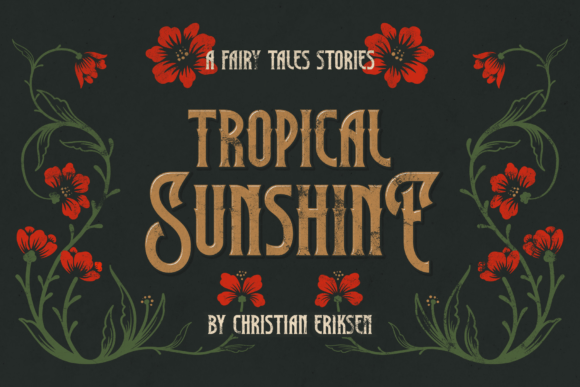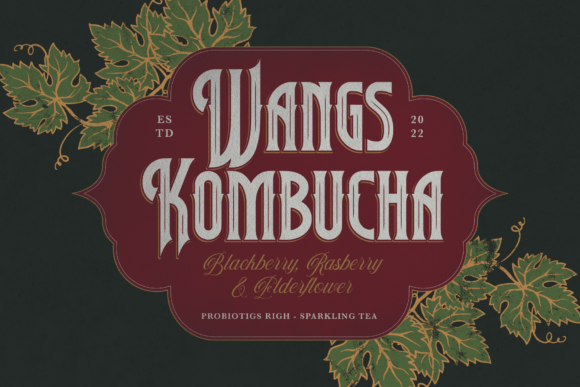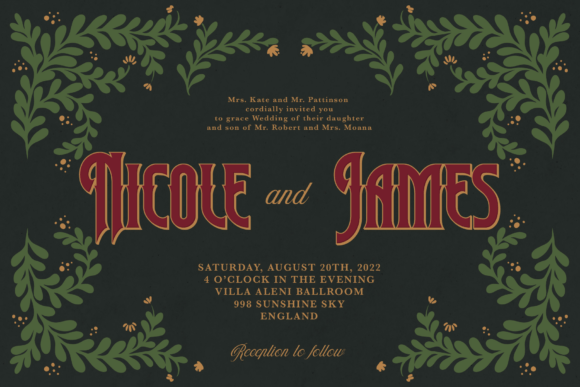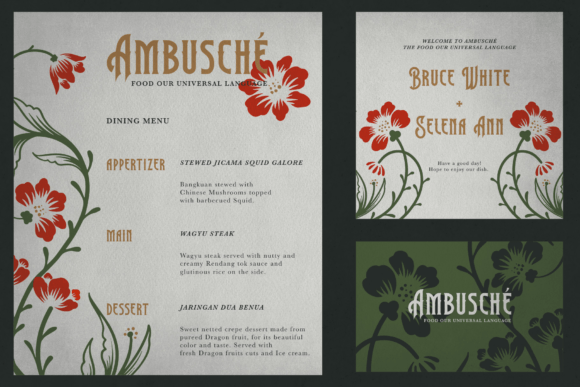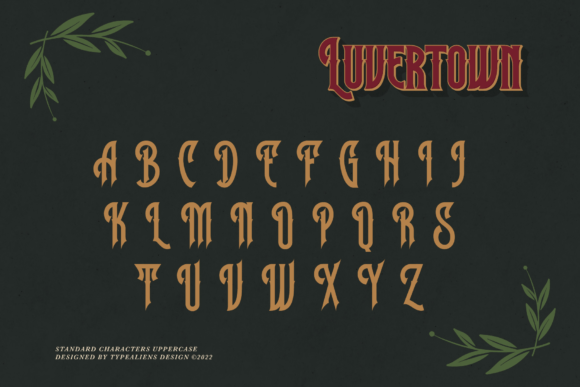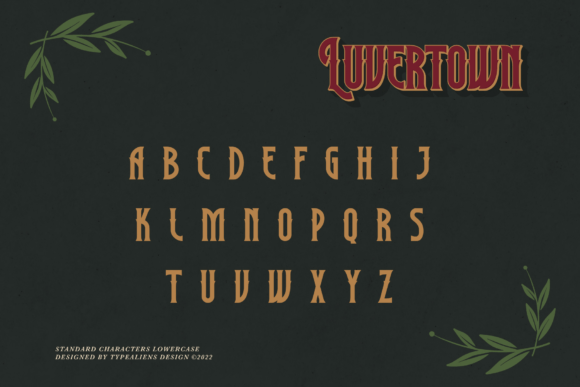
Introduction to Luvertown Font Font
Fonts play a crucial role in design, and the Luvertown Font font is a typeface that brings both character and versatility to any project. Whether you’re working on a branding project, a website, or a print design, the Luvertown Font font offers a unique style that can elevate your work.
| 📌 Font Name | Luvertown Font |
| 👤 Author | typealiens |
Luvertown is a stylish and elegant display font.
Add it confidently to your projects and you will be astounded by the outcome generated .
Key Features of Luvertown Font Font
The Luvertown Font font is more than just a typeface – it’s a design tool that helps you communicate your message with style and clarity. Its unique character set and versatile design make it suitable for a wide range of applications, from elegant invitations to bold headlines.
With its carefully crafted letterforms and balanced proportions, the Luvertown Font font ensures readability and visual appeal across all mediums.
The Luvertown Font font stands out with its unique design, exceptional readability, and versatility across various design applications.